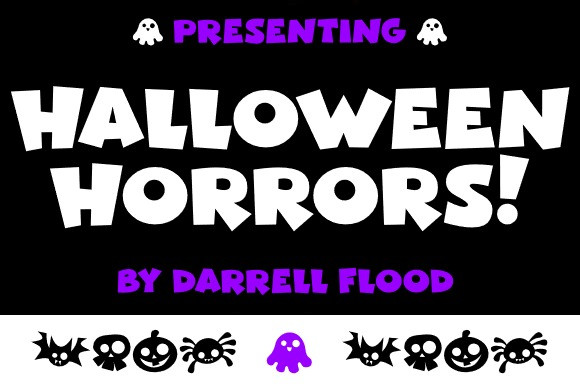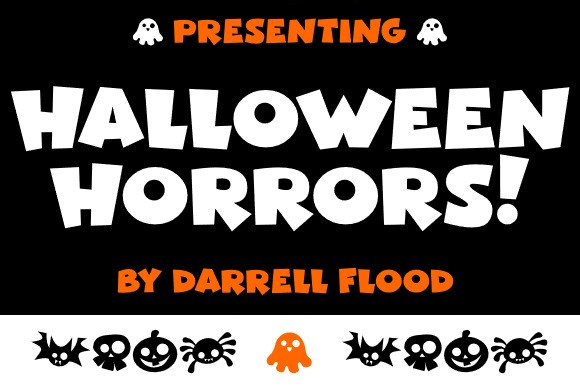
Halloween Horrors Font
Halloween Horrors Font is a cute cartoon font in a quirky Halloween style. It includes various neat little spooky characters. HalloweenHorrors is perfect for Halloween events, ghost stories and general all purpose use!